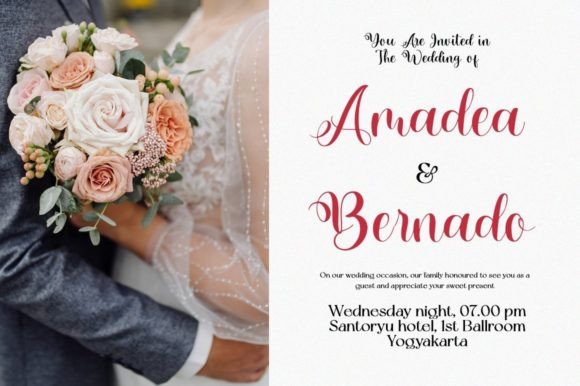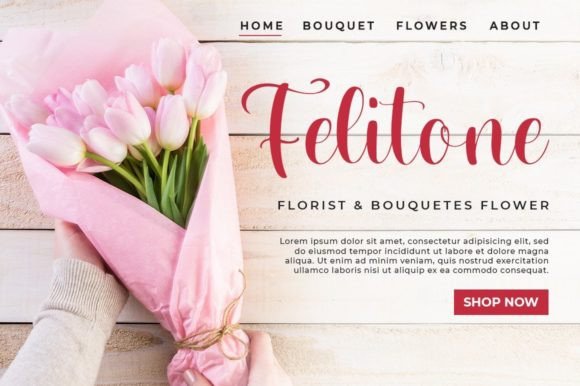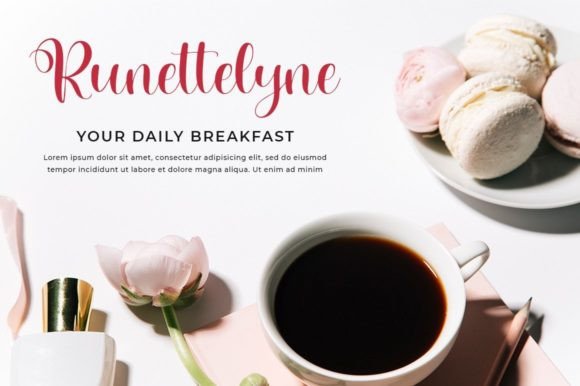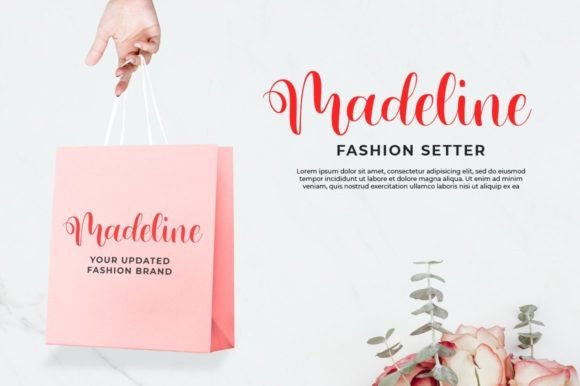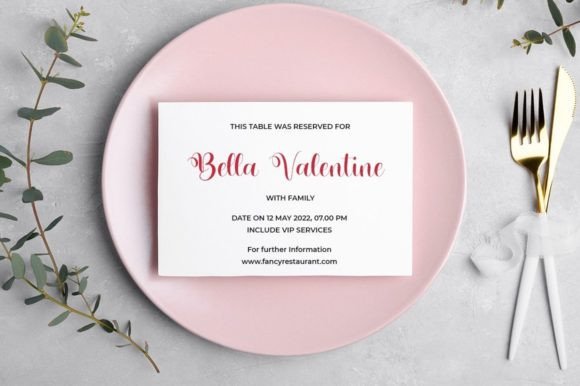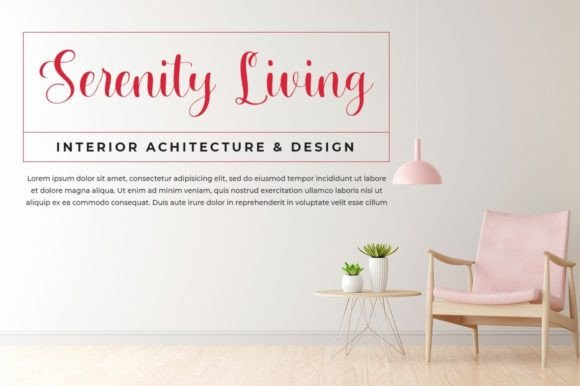
Introduction to Sanguine Font
Sanguine is a stylish Font Style.
This beautiful script font offers your personal touch to your latest art project with an elegant, classy, and modern look The Sanguine Script offers gorgeous typographic perfect for many different projects such as logos & branding, invitations, stationery, wedding designs, social media posts, advertisements, product packaging, product designs, labels, photography, watermarks, special events, or anything that needs handwriting taste.
Sanguine Font offers exceptional quality and versatility, making it a valuable addition to your design toolkit. Whether you’re creating for personal projects or commercial use, Sanguine Font delivers professional results.